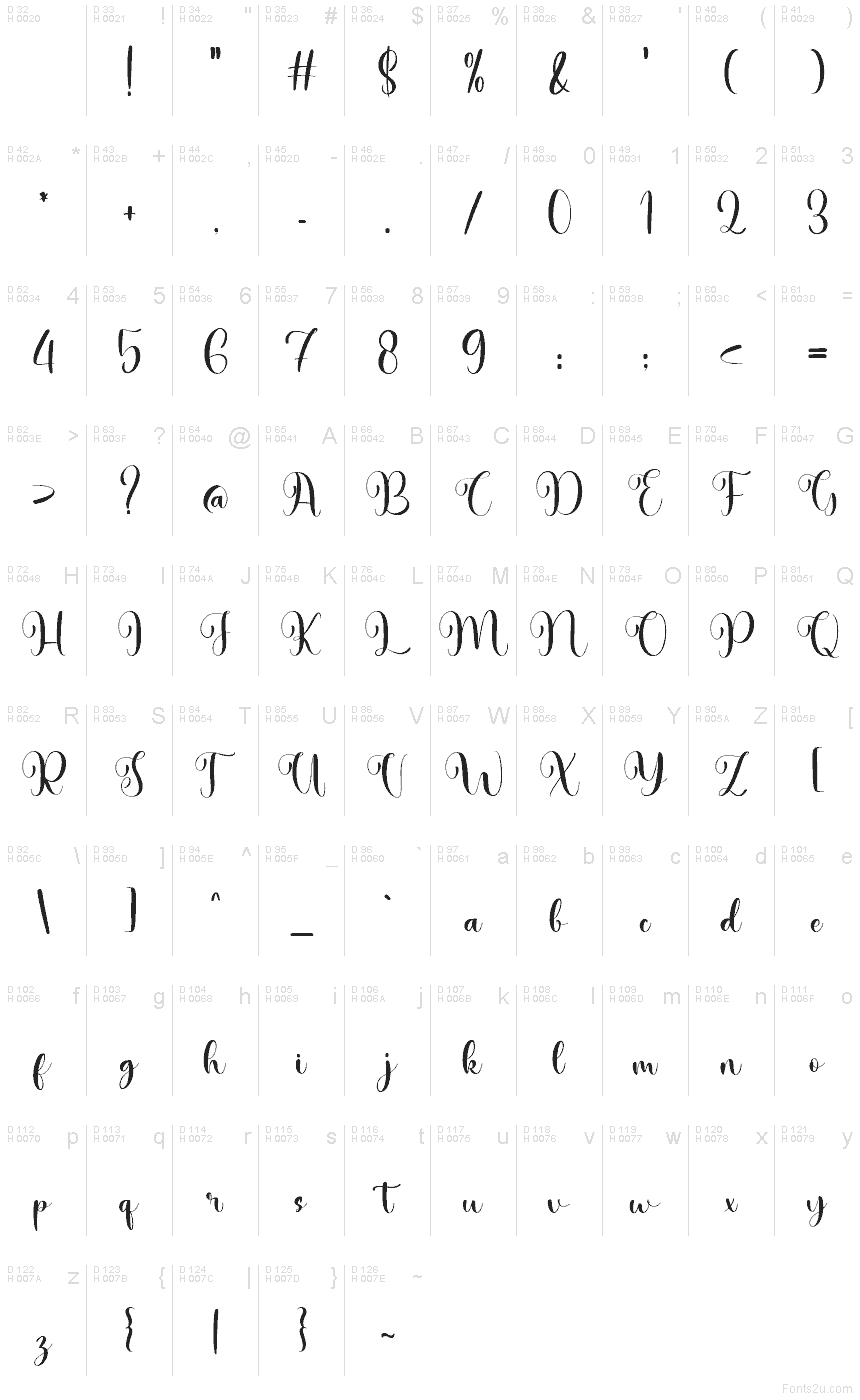
NCL Sojileq Qurtesy
NCL Sojileq Qurtesy font by Enxyclo Studio is a free calligraphy typeface. Its inky, tapering strokes sweep into airy loops and soft curls, giving every word a hand-penned grace. The rhythm feels light and celebratory, with long swashes that glide without getting messy—just the kind of flourish that turns simple text into keepsake-worthy moments.
Using NCL Sojileq Qurtesy, your invitations, boutique logos, product packaging, event signage, greeting cards, and social media quotes gain a refined, romantic lift. This free font holds legibility thanks to open spacing, so headlines read smoothly even with decorative swashes. Pair with a clean geometric sans for body copy to keep the script’s sparkle front and center.